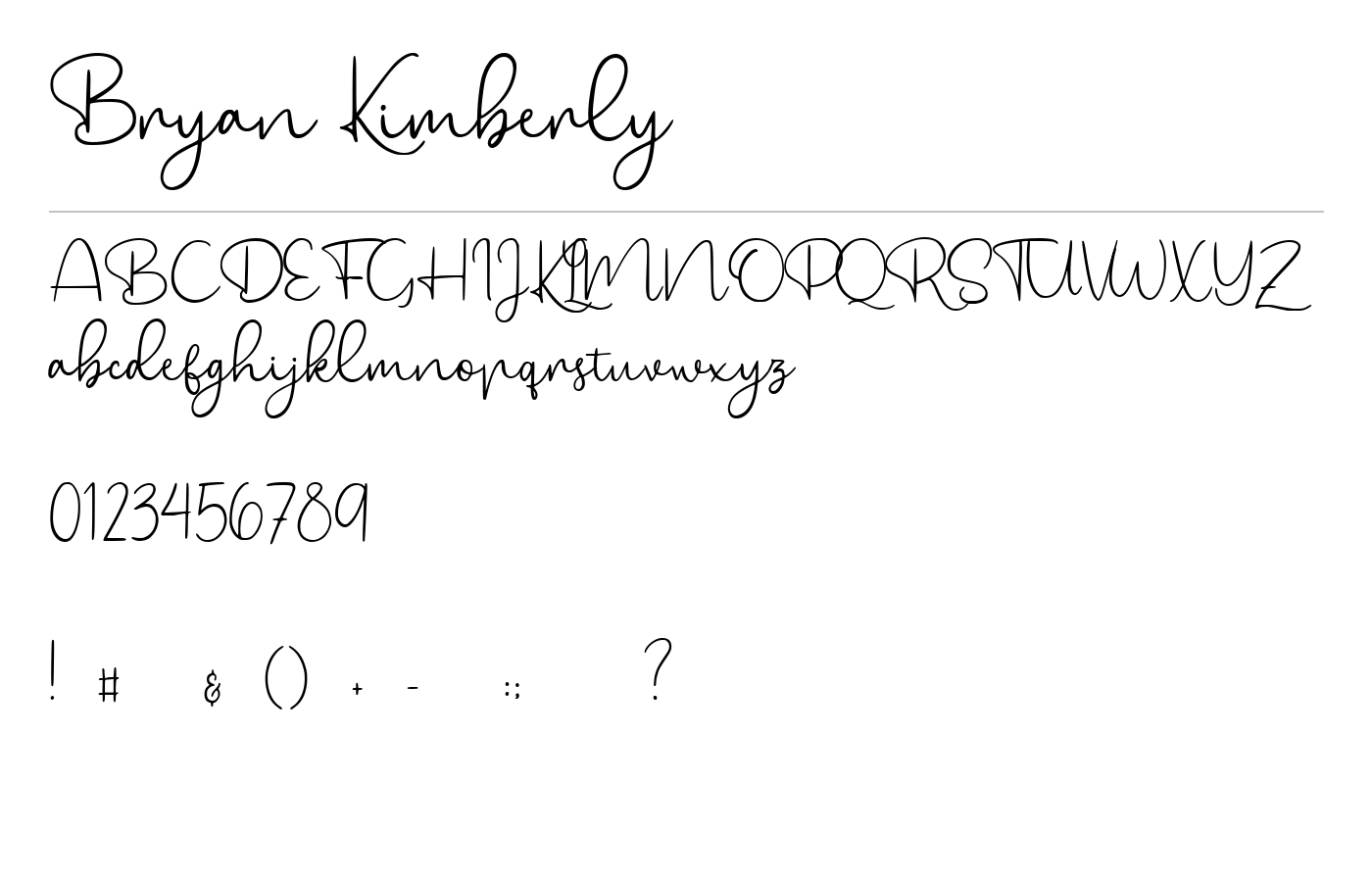
Bryan Kimberly Font is a delicate, handwritten script with a slender, airy feel and elegant, flowing letterforms. Its light weight and tall x-height give it a graceful and modern look, making it perfect for personal branding, invitations, and stylish headlines that require a touch of sophistication and charm. This font works beautifully in designs that seek a warm, approachable, yet refined personality.
Bryan Kimberly Font
About Bryan Kimberly Font
| Font family | Bryan Kimberly Font |